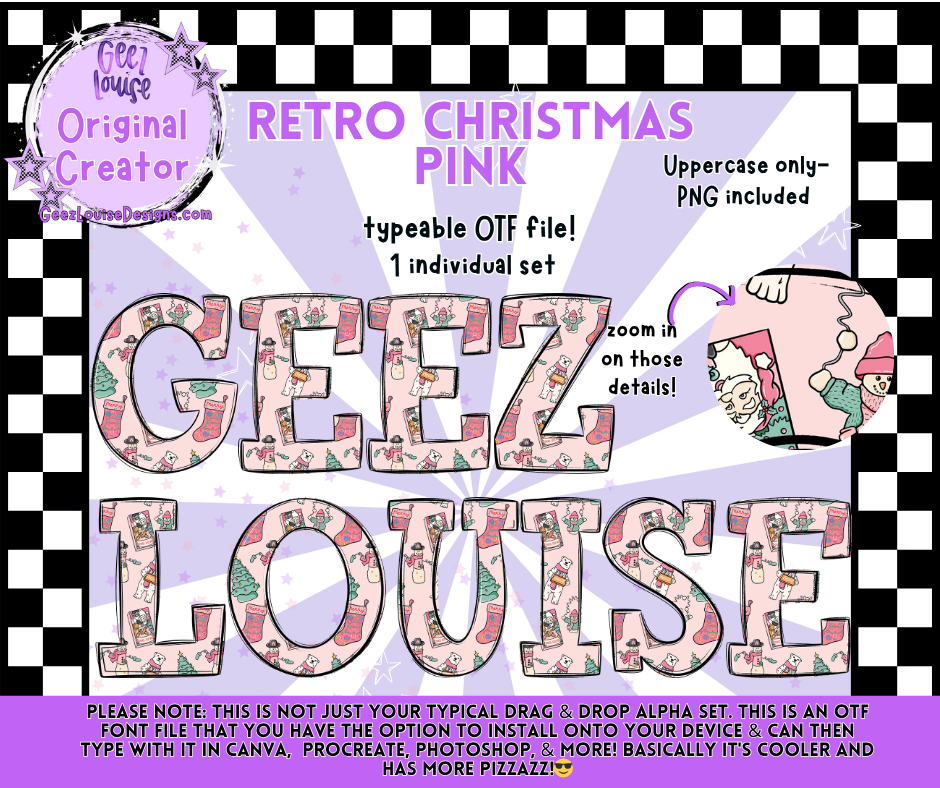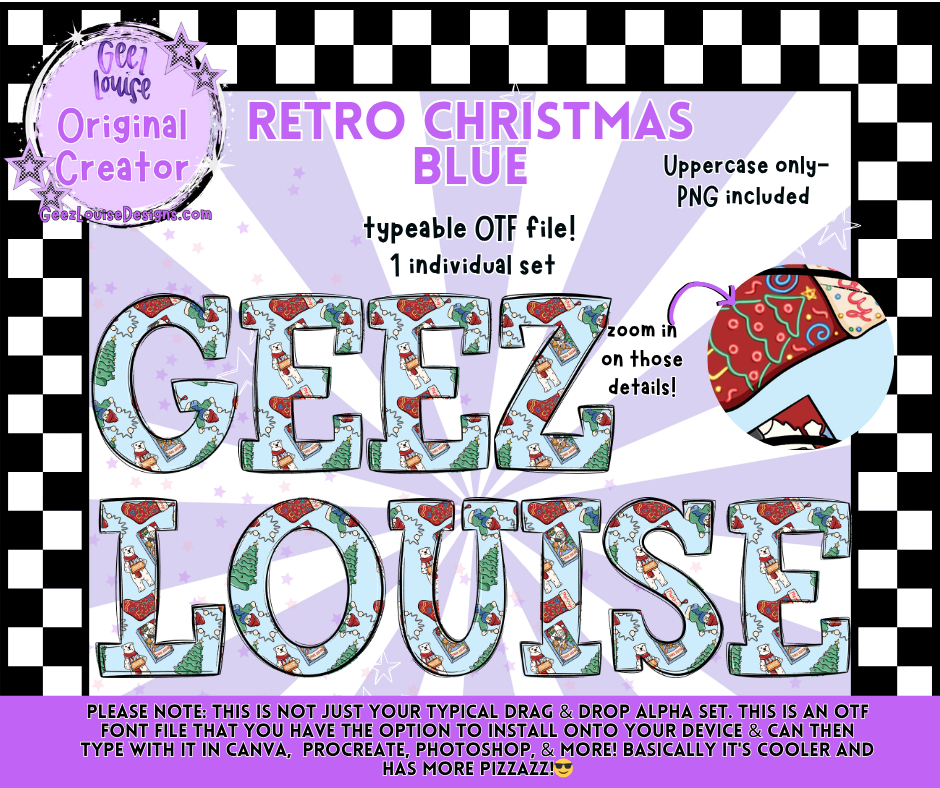
Retro Christmas Typeable OTF Font + PNG Set | Blue & Pink Variants
Bring vintage holiday charm to your designs with the Retro Christmas Typeable OTF Font Collection! ๐โจ
These festive fonts capture that nostalgic mid-century Christmas feel โ complete with retro ornaments, trees, and holiday flair. Each color variant adds its own twist:
๐ Blue Variant: Cool tones with classic vintage holiday patterns.
๐ Pink Variant: Soft pastel tones for a cozy, feminine Christmas vibe.